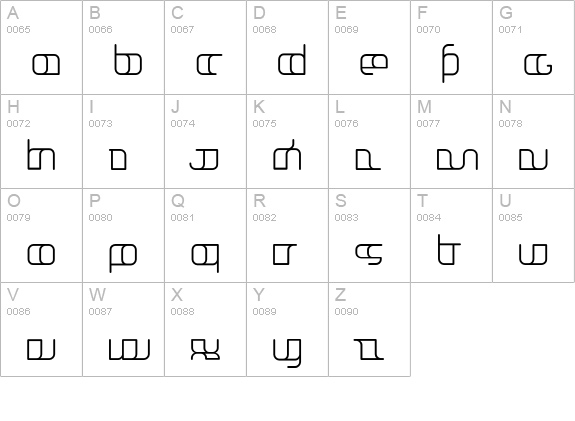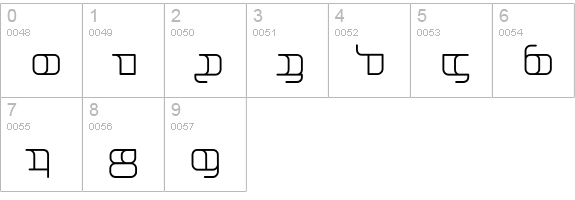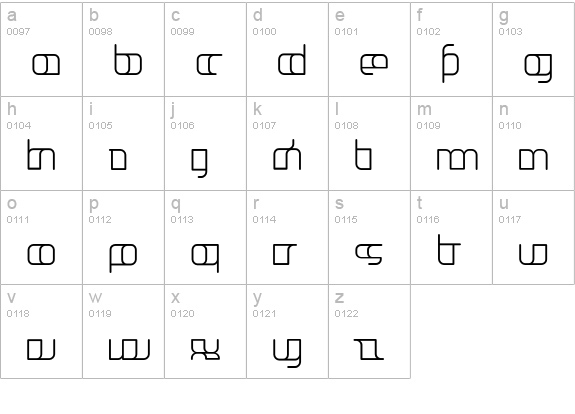
Jakone-Extended is a distinctive, extended-width variant in the Jakone typeface family \xE2\x80\x94 well suited to design and typography projects.
Introducing Jakone-Extended, a stunning and versatile font that will elevate your designs to new heights. This remarkable typeface is meticulously crafted with precision and attention to detail, ensuring each character is beautifully executed. With its extended and elegant letterforms, Jakone-Extended exudes a sense of sophistication and modernity. Whether you're working on branding projects, advertisements, editorial designs, or any creative endeavor, this font will add a touch of class and professionalism. The clean lines and balanced proportions of Jakone-Extended make it incredibly legible, even at smaller sizes. Its versatility allows it to seamlessly adapt to various design styles, from minimalist to bold and expressive. This font truly offers endless possibilities for your creative visions. What's even more exciting is that Jakone-Extended is absolutely free! That's right, you can download this exceptional font at FontsMarket.com without any cost. We believe that great design should be accessible to all, and Jakone-Extended embodies this philosophy. Don't miss out on the opportunity to enhance your designs with this outstanding font. Download Jakone-Extended now and experience the power of free, high-quality typography. Let your creativity soar with Jakone-Extended, the font that effortlessly combines elegance and modernity, and is freely available at FontsMarket.com.